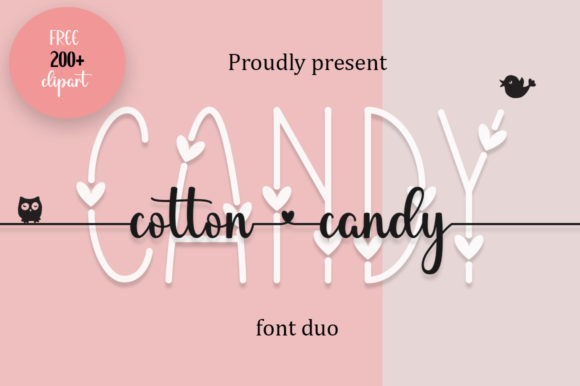
Cotton Candy Font: The Ultimate Guide to this Elegant and Playful Duo Font
In the world of typography, fonts play a crucial role in conveying the tone and personality of a brand or design. Among the numerous fonts available, the Cotton Candy Font stands out for its elegance and playfulness. This duo font, consisting of a decorative and handwritten style, is perfect for adding a touch of whimsy and charm to various crafty projects. In this article, we’ll explore the features, benefits, and uses of the Cotton Candy Font, and provide tips on how to make the most of this beautiful font.
Key Features of Cotton Candy Font
- Elegant and Playful Design: The Cotton Candy Font is designed to be both elegant and playful, making it suitable for a wide range of projects, from wedding invitations to children’s party decorations.
- Duo Font: This font comes in two styles: decorative and handwritten, allowing you to mix and match to create a unique look.
- Dainty and Delicate Swashes: The font features beautiful, intricate swashes that add a touch of sophistication and elegance to any design.
- PUA Encoded: The Cotton Candy Font is PUA (Private Use Area) encoded, making it easy to access all the glyphs and swashes.
Benefits of Using Cotton Candy Font
The Cotton Candy Font offers several benefits that make it an excellent choice for designers and crafters. Some of the advantages of using this font include:
- Unique and Original Look: The font’s elegant and playful design, combined with its dainty swashes, creates a unique and original look that will set your designs apart.
- Versatility: The Cotton Candy Font is suitable for a wide range of projects, including wedding invitations, party decorations, branding, and more.
- Easy to Use: The font’s PUA encoding makes it easy to access all the glyphs and swashes, allowing you to create beautiful designs without any hassle.
Creative Uses for Cotton Candy Font
The Cotton Candy Font is a versatile font that can be used in various creative projects. Here are some ideas to get you started:
- Wedding Invitations: The font’s elegant and playful design makes it perfect for wedding invitations, especially for whimsical or vintage-themed weddings.
- Party Decorations: Use the Cotton Candy Font to create beautiful party decorations, such as banners, garlands, and cupcake toppers.
- Branding: The font’s unique and original look makes it suitable for branding, especially for businesses that want to convey a playful and elegant personality.
- Stationery: Use the Cotton Candy Font to create beautiful stationery, such as greeting cards, thank-you cards, and journals.
Tips and Tricks for Using Cotton Candy Font
To make the most of the Cotton Candy Font, here are some tips and tricks to keep in mind:
- Experiment with Different Sizes: The font looks great in various sizes, so experiment with different sizes to find the one that works best for your project.
- Mix and Match: Don’t be afraid to mix and match the decorative and handwritten styles to create a unique look.
- Use Swashes Wisely: The font’s swashes are beautiful, but can be overwhelming if overused. Use them sparingly to add a touch of elegance to your design.
In conclusion, the Cotton Candy Font is a beautiful and versatile font that can add a touch of elegance and playfulness to various creative projects. Its unique and original design, combined with its ease of use, makes it an excellent choice for designers and crafters. With its numerous benefits and creative uses, the Cotton Candy Font is sure to become a favorite in your font collection.